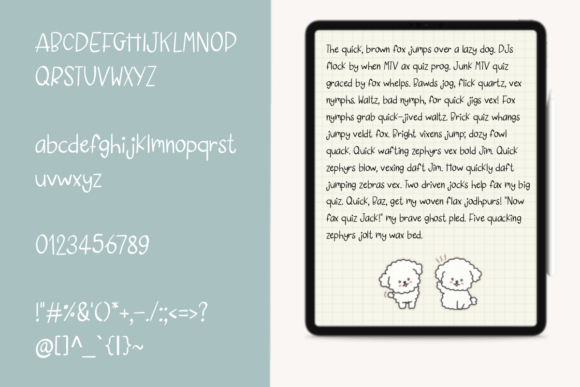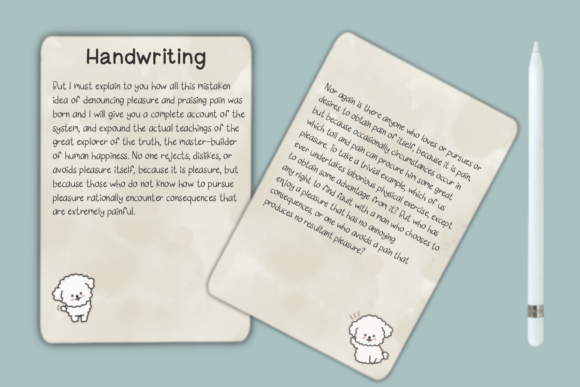
Introducing Blue Berry Cakes Font: The Sweetest Addition to Your Design Collection
Are you a designer or crafter looking for a font that adds a touch of whimsy and charm to your projects? Look no further than Blue Berry Cakes Font! This adorable handwriting font is perfect for creating a wide range of crafty ideas that are sure to delight. In this article, we’ll dive into the features and benefits of Blue Berry Cakes Font, and explore the many ways you can use it to bring your designs to life.
A Cute and Versatile Font
Blue Berry Cakes Font is a beautifully designed handwriting font that boasts well-balanced characters and a playful feel. Its cute and charming appearance makes it perfect for a variety of design projects, from greeting cards and invitations to wall art and decorations. The font’s versatility is one of its standout features, allowing you to use it for both personal and commercial projects.
What Makes Blue Berry Cakes Font So Special?
So, what sets Blue Berry Cakes Font apart from other fonts? Here are just a few of its unique features:
- Beautifully crafted characters: Each character in Blue Berry Cakes Font has been carefully designed to be visually appealing and well-balanced, making it a joy to use in your designs.
- Cute and playful feel: The font’s playful feel makes it perfect for designs that require a touch of whimsy and charm.
- Highly versatile: Blue Berry Cakes Font can be used for a wide range of design projects, from digital files to print materials.
10 Creative Ways to Use Blue Berry Cakes Font
Now that we’ve covered the features and benefits of Blue Berry Cakes Font, let’s explore some creative ways to use it in your designs:
- Greeting Cards: Add a personal touch to your greeting cards with Blue Berry Cakes Font. It’s perfect for birthdays, weddings, and other special occasions.
- Frames and Signs: Use Blue Berry Cakes Font to add a decorative touch to frames, signs, and other home decor projects.
- Mugs and Water Bottles: Create custom mugs and water bottles with Blue Berry Cakes Font for a unique and personalized gift.
- Shopping Bags: Add a touch of charm to your shopping bags with Blue Berry Cakes Font. It’s perfect for craft fairs, markets, and other events.
- Wall Art: Create beautiful wall art with Blue Berry Cakes Font. It’s perfect for quotes, poems, and other inspirational messages.
- Phone Boxes: Customize phone boxes and phone cases with Blue Berry Cakes Font for a unique and eye-catching design.
- Stickers and Labels: Use Blue Berry Cakes Font to create custom stickers and labels for your products or packaging.
- Decorations: Add a touch of whimsy to your decorations with Blue Berry Cakes Font. It’s perfect for parties, events, and other celebrations.
- Digital Files: Use Blue Berry Cakes Font to create custom digital files, such as printable art, planners, and organizers.
- Branding and Packaging: Use Blue Berry Cakes Font to create a unique and recognizable brand identity for your business.
Tips and Tricks for Using Blue Berry Cakes Font
Here are a few tips and tricks to help you get the most out of Blue Berry Cakes Font:
- Experiment with colors: Blue Berry Cakes Font looks great in a variety of colors, so don’t be afraid to experiment and find the perfect hue for your design.
- Mix and match with other fonts: Blue Berry Cakes Font pairs well with other fonts, so try mixing and matching it with different fonts to create a unique look.
- Use it for titles and headings: Blue Berry Cakes Font is perfect for titles and headings, so use it to add a touch of whimsy to your designs.
Blue Berry Cakes Font is a versatile and charming handwriting font that’s perfect for designers and crafters. Its beautiful characters, cute feel, and high versatility make it a great addition to any design collection. With its wide range of uses and applications, Blue Berry Cakes Font is sure to become a favorite font in your arsenal. So why wait? Download Blue Berry Cakes Font today and start creating your own unique designs!